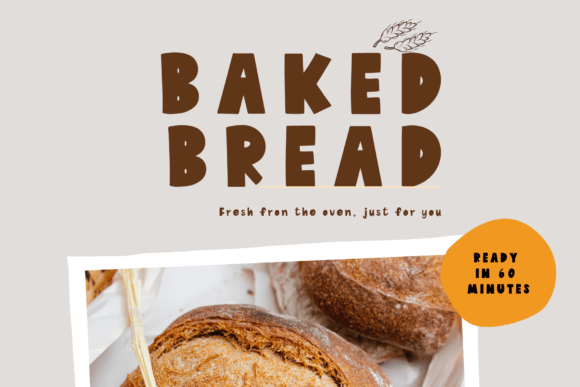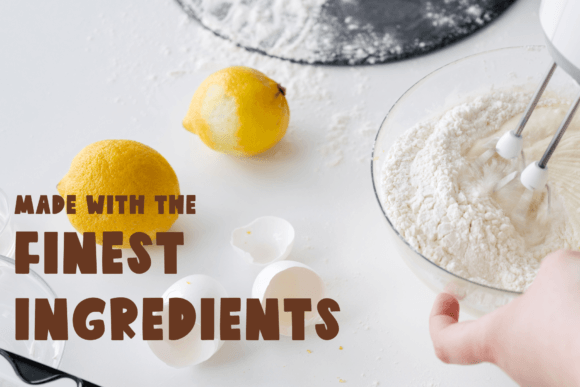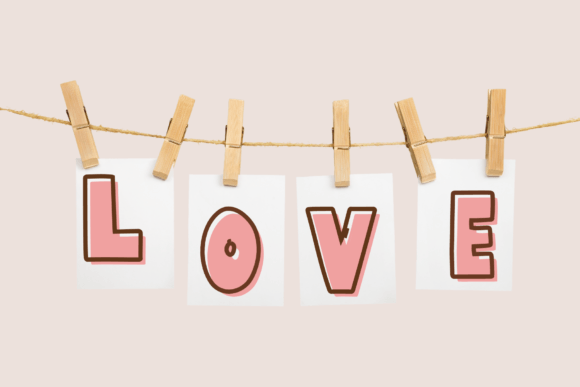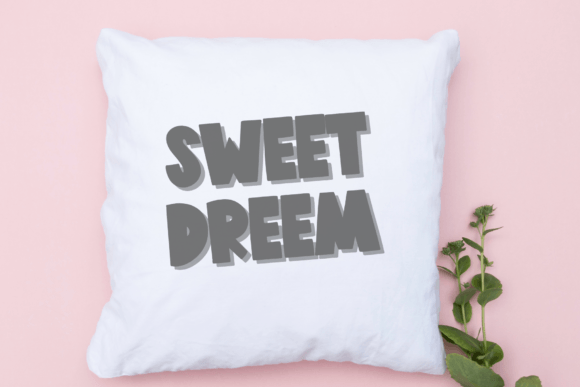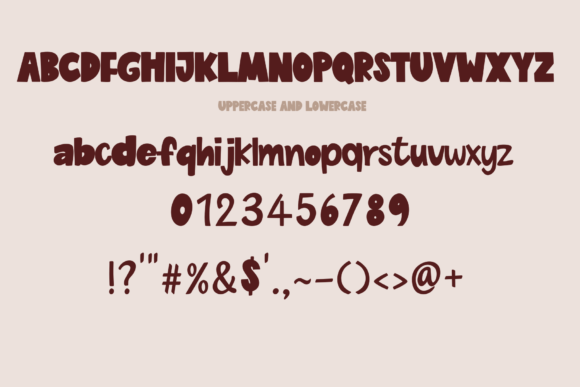
Introduction to Play Bun Font
Play Bun is a fun handwritten display font.
Its cute summery vibe and casual charm will help you create lovely designs Use it for t-shirts, stickers, tote bags, candy packaging, food menus, and more.
Key Features of Play Bun Font